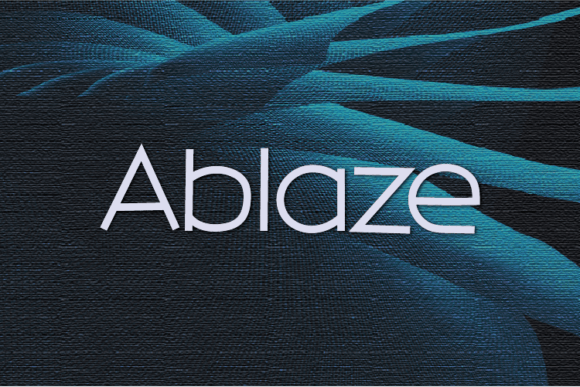
Igniting Your Designs with A Unique Twist
Have you ever stared at a blank canvas, waiting for that spark of inspiration to strike? For designers, those moments of creative clarity can be a game-changer. It’s the instant when an idea ignites, and the possibilities seem endless. For those who crave something fresh and exciting, we’re excited to introduce you to the Ablaze Font.
This natural sans serif font is more than just a stylish addition to your designs – it’s a statement piece. With its unique, unaltered character indentation, Ablaze Font adds a touch of authenticity to any project. Whether you’re crafting quotes, notes, or product designs, this font is sure to leave a lasting impression. As a designer, you’ll appreciate the value it brings to your work, elevating your creations to new heights.
Ablaze Font Key Features
- Font Family: Ablaze is a sans-serif font family designed for digital use.
- Unique Characteristics: Ablaze features a modern and energetic design, with a focus on readability and legibility in digital environments.
Ablaze Font Review
Overall, I think the Ablaze font is a bold and eye-catching choice for any project. ✨ The unique blend of modern and vintage elements gives it a distinctive look that can add a lot of personality to your design. The font is highly customizable, making it easy to adapt to different color schemes and styles.
- ✨ Highly customizable: The Ablaze font offers a wide range of options for customizing the look and feel, making it a great choice for designers who want to add a personal touch to their projects.
- ✨ Bold and eye-catching: The font’s unique blend of modern and vintage elements makes it a great choice for projects where you want to make a statement.
- ✨ Great for headings and titles: The Ablaze font is particularly well-suited for headings and titles, where its bold and eye-catching qualities can really shine.
However, there are a few limitations to the Ablaze font that are worth noting: ⚠️ The font can be a bit difficult to read in certain situations, particularly at small font sizes. Additionally, the font’s unique design elements can sometimes make it feel a bit over-the-top or kitschy.
Overall, I think the Ablaze font is a great choice for designers who are looking for a bold and eye-catching font that can add some personality to their projects. While it may not be the best choice for every project, it’s definitely worth considering for designs where you want to make a statement.
Tips for Getting the Most Out of Ablaze Font
To maximize the impact of Ablaze Font, consider the following tips:
- Use it for titles and headings to create a bold, attention-grabbing effect.
- Pair it with other fonts to create contrast and visual interest.
Ablaze Font is ideal for:
- Designing bold and eye-catching titles and headings.
- Use the Ablaze Font for headings and titles to add a dramatic flair.
- Pair the font with bold, bright colors to create a firework-like effect.
- Use animated GIFs or videos of fireworks to create a dynamic background.
- Combine the font with pyrotechnic-inspired graphics, such as exploding stars or sparks.
- Use the Ablaze Font for the quotes to add a sense of urgency and drama.
- Pair the font with a clean, simple background to let the quotes shine.
- Use a subtle gradient or texture to add depth to the background.
- Combine the font with minimalist illustrations or icons to add visual interest.
- Use the Ablaze Font for the concert name or headline to
Q: What is the Ablaze Font and what is its purpose?
The Ablaze Font is a high-contrast, sans-serif font designed for use in digital displays, such as computer screens and mobile devices. Its purpose is to provide clear readability in a variety of environments, with a focus on visibility and legibility.
Project Ideas using Ablaze Font
Project 1: Ablaze Firework Website
Create an eye-catching website that showcases the explosive power of fireworks using the Ablaze Font.
How to use Ablaze Font:
Project 2: Ablaze Quote Typography
Create a visually striking typography project featuring motivational quotes in the Ablaze Font.
How to use Ablaze Font:
Project 3: Ablaze Concert Poster
Create a high-energy concert poster that features the Ablaze Font in a bold, attention-grabbing way.